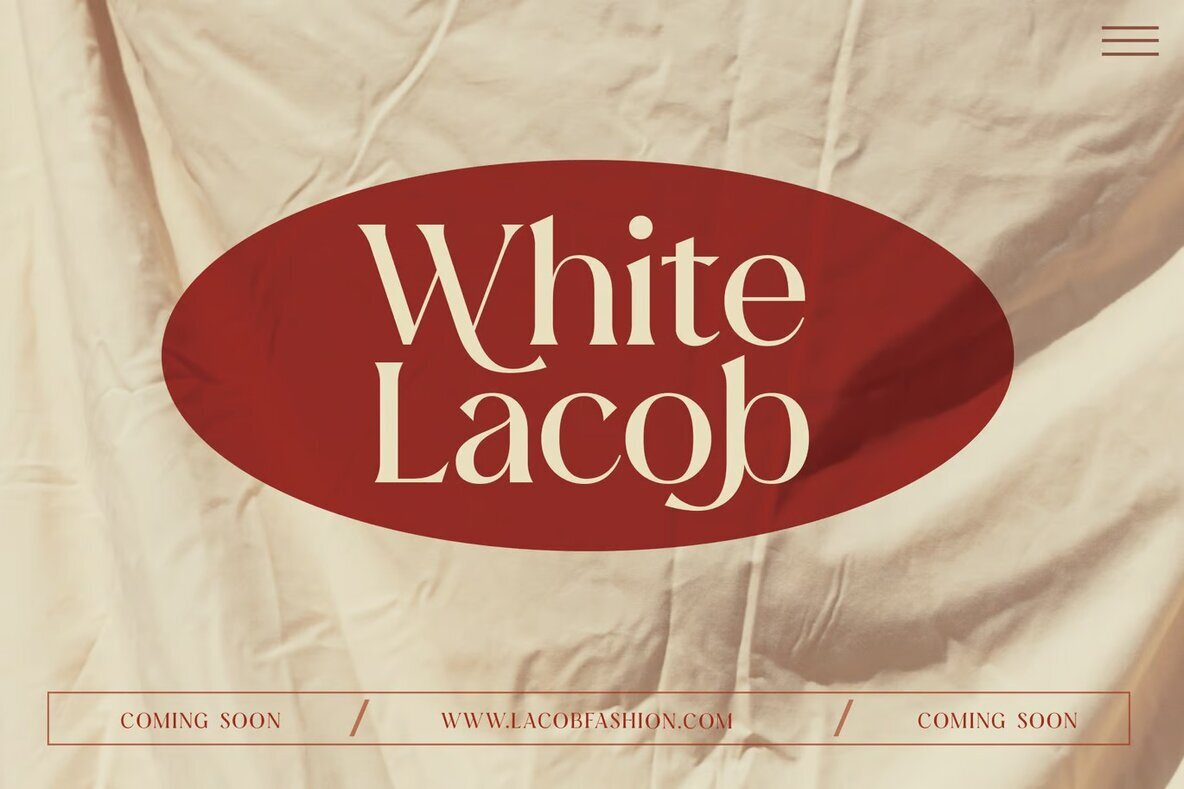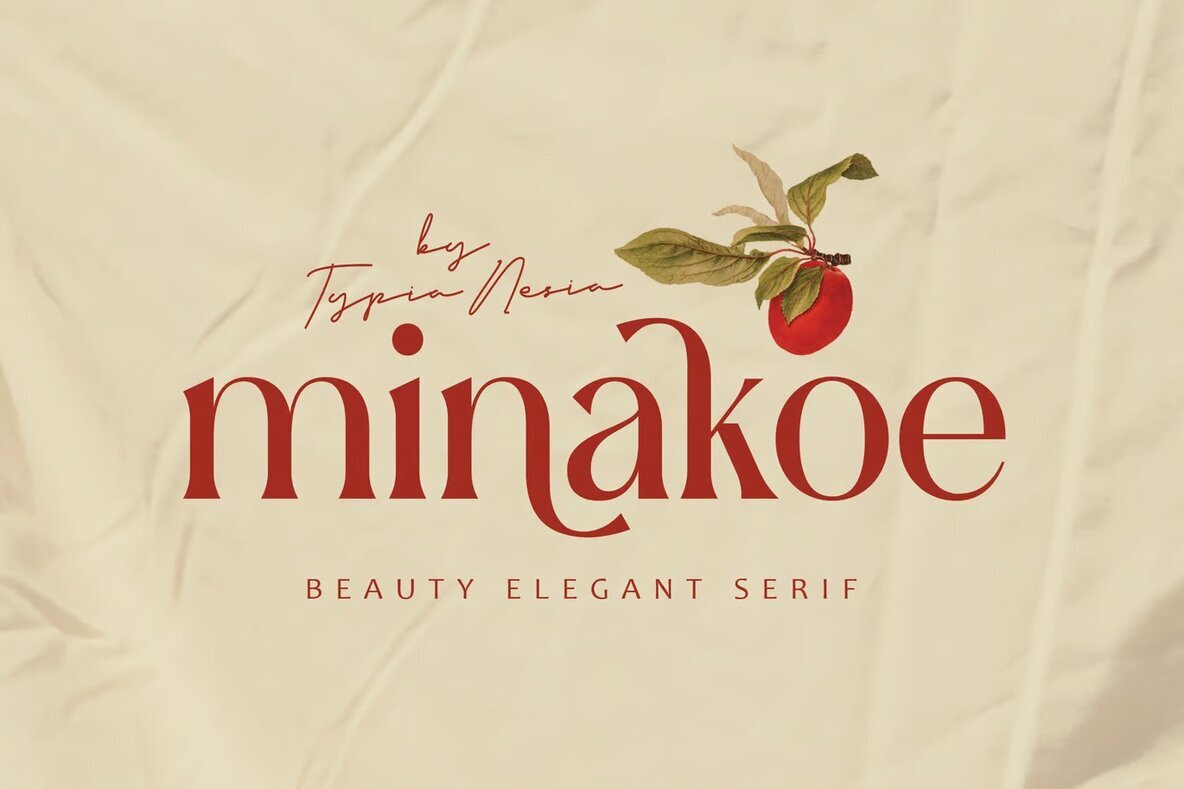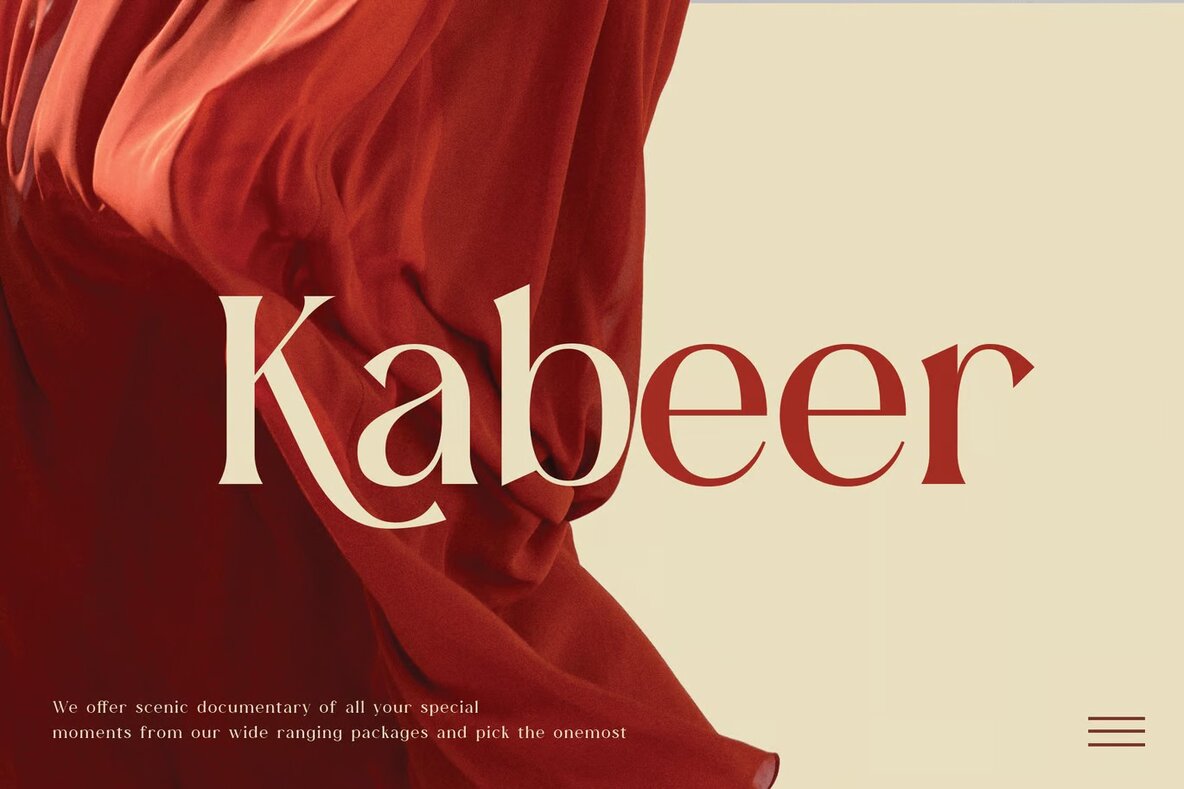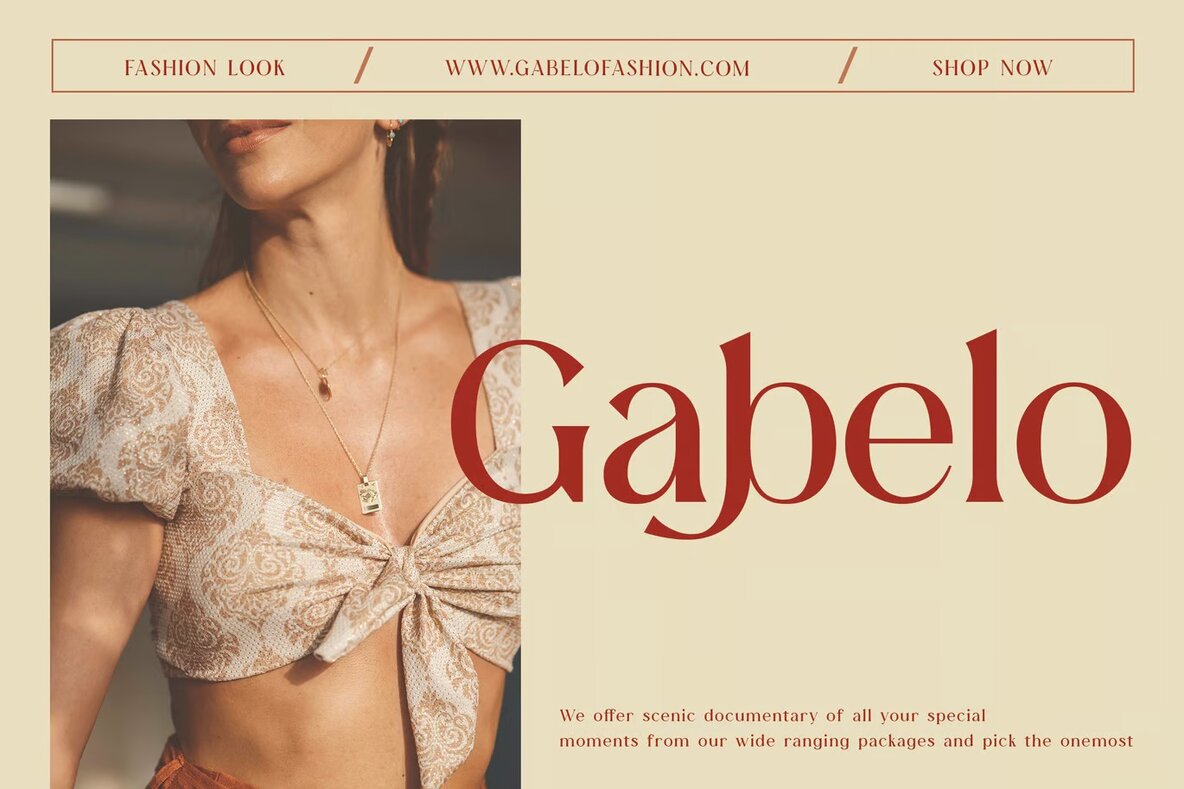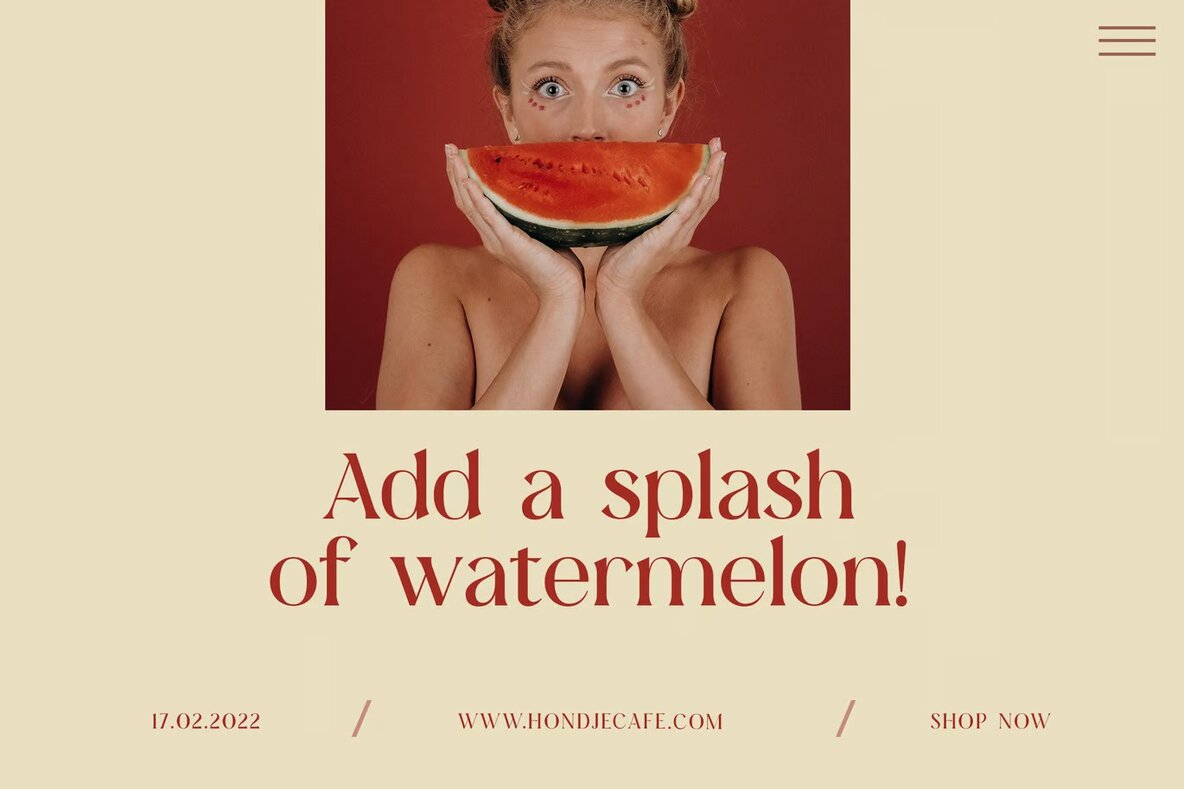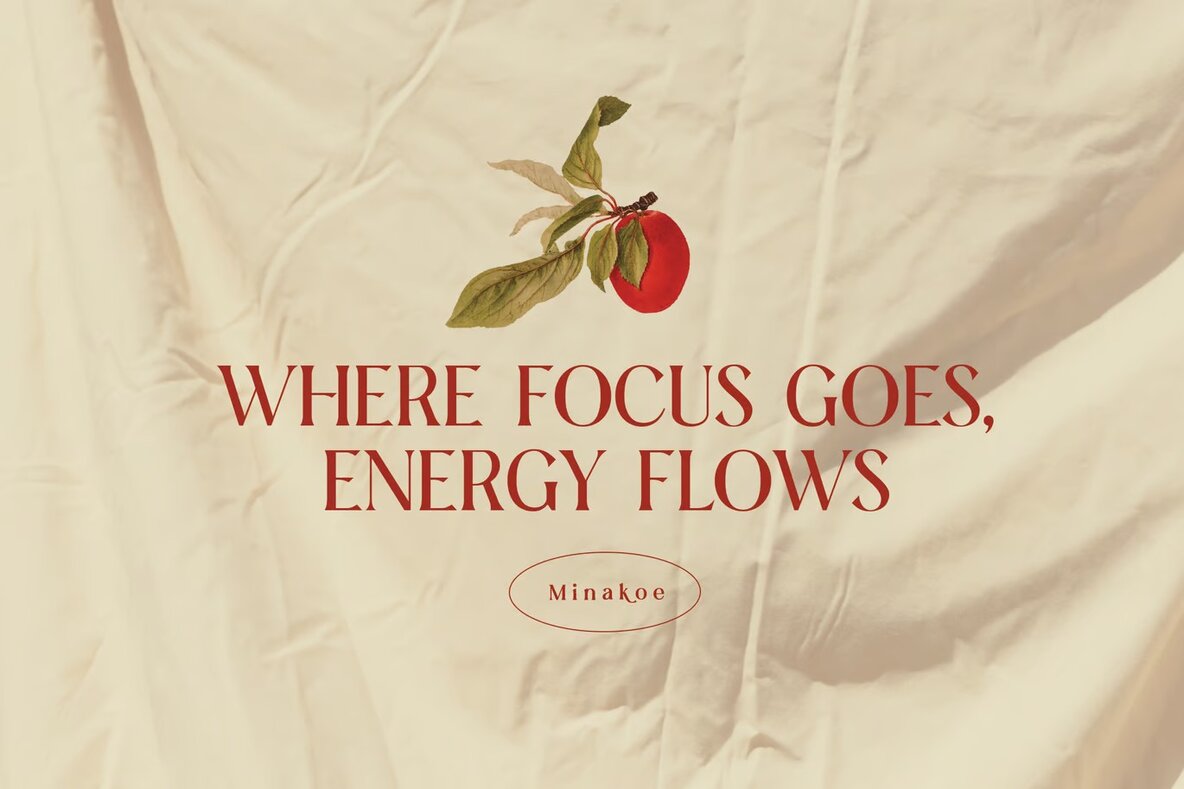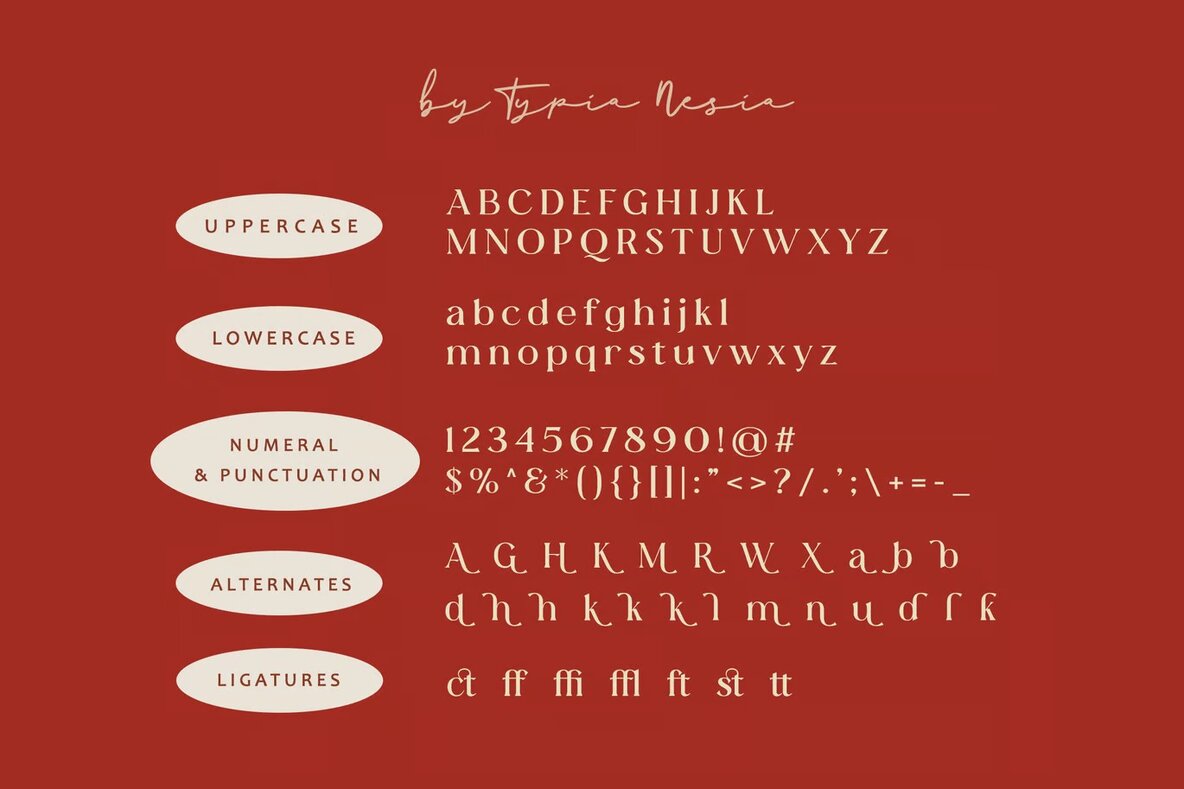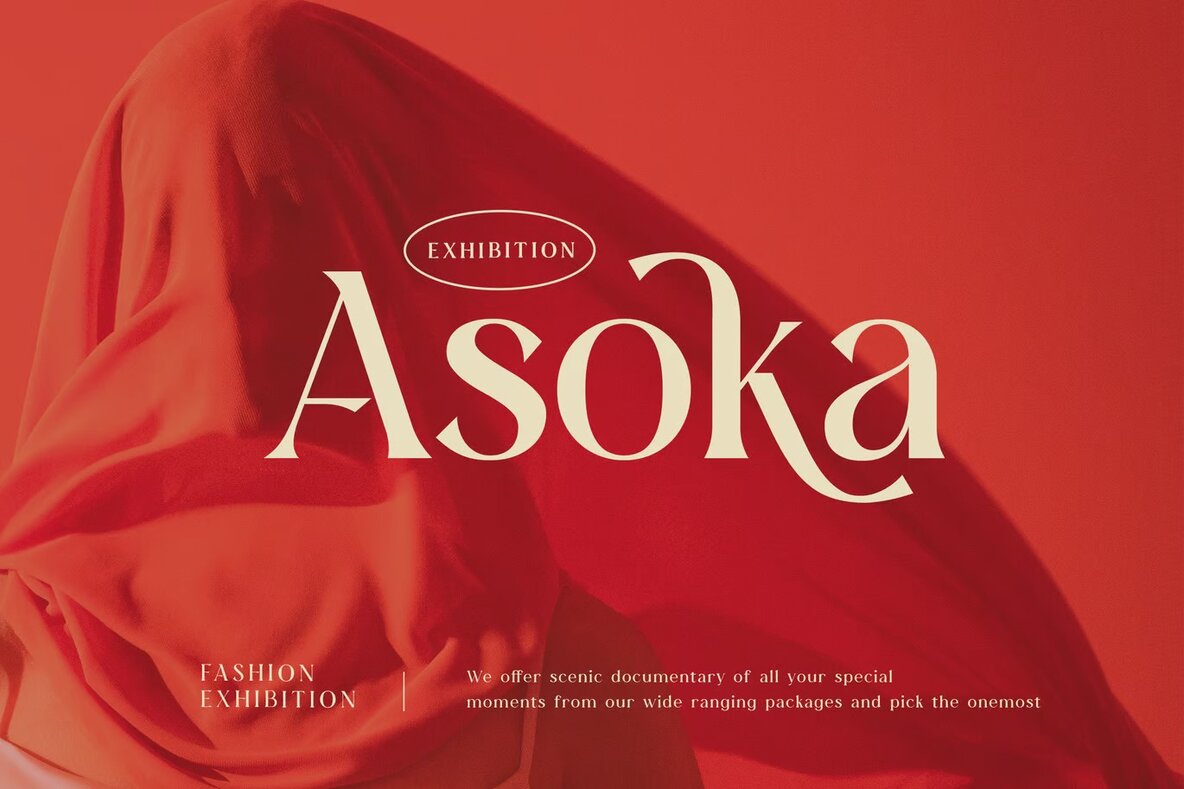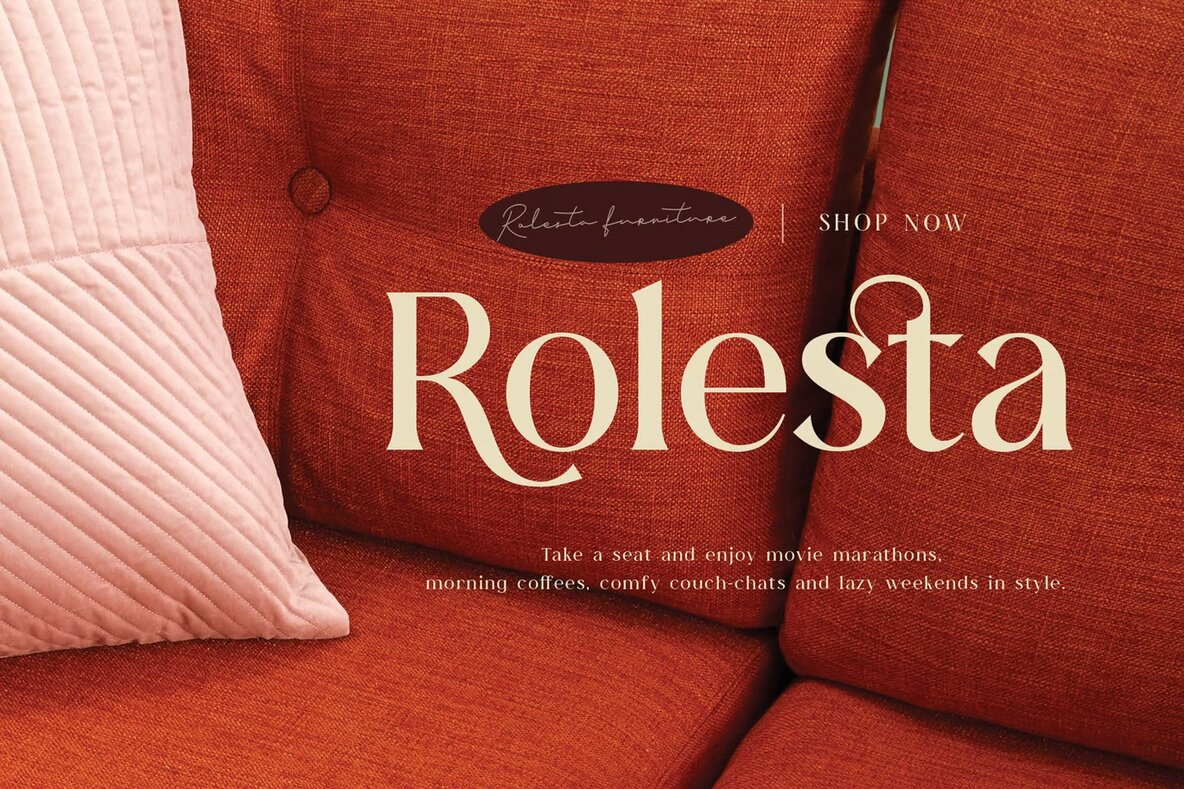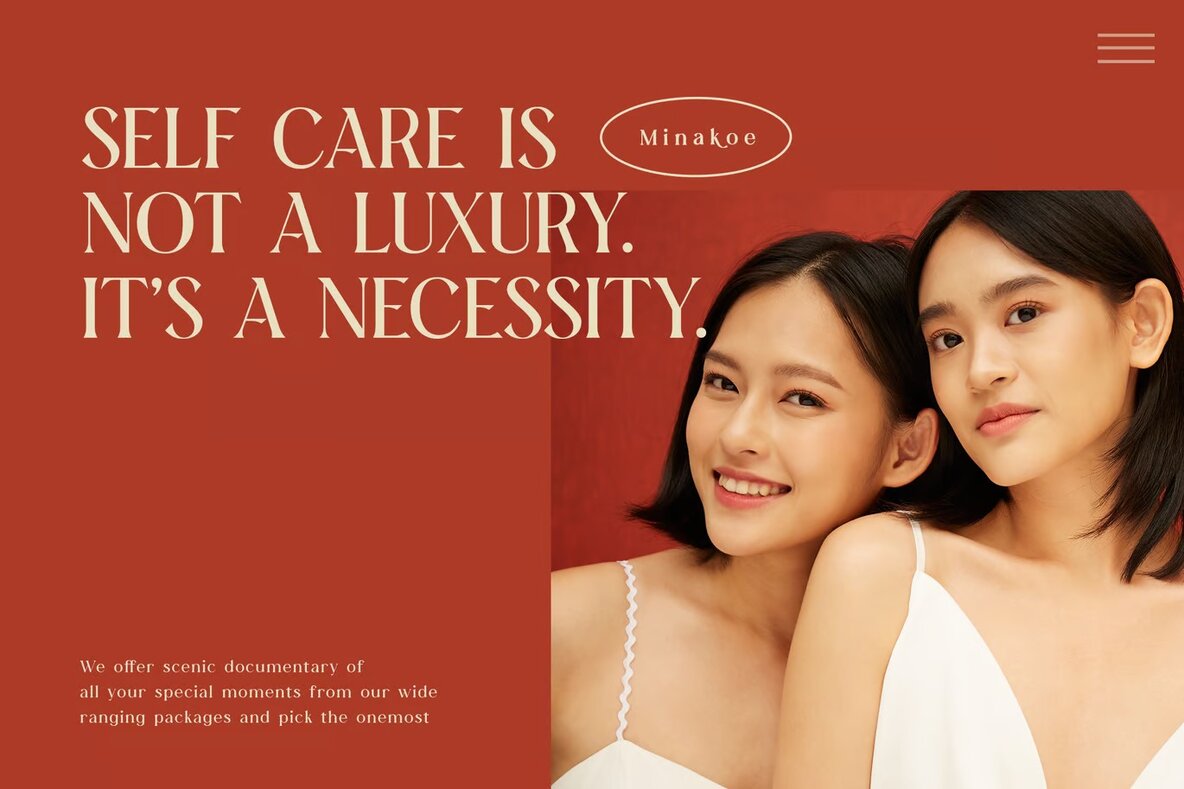
Minakoe Font
Minakoe Regular
Minakoe is a versatile typeface designed with a variety of alternates and ligatures, allowing you to create customized and refined typography for your design projects. Whether you're working on luxury logos, branding, or classy editorial layouts, Minakoe provides the flexibility needed to achieve a sophisticated and polished look.
Ideal for high-end projects such as women's magazines, cosmetic brands, fashion promotions, and art gallery branding, Minakoe also lends itself well to boutique branding, stationery design, and modern advertising. It's perfect for crafting elegant invitations, art quotes, home decor pieces, book covers, and titles, as well as special event designs. With its stylish characters, Minakoe enhances any project with a touch of elegance and class.